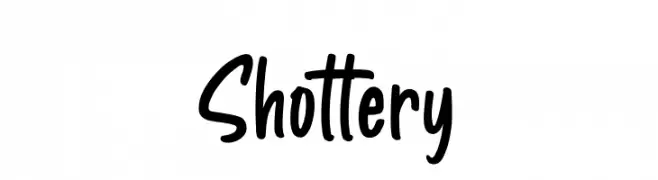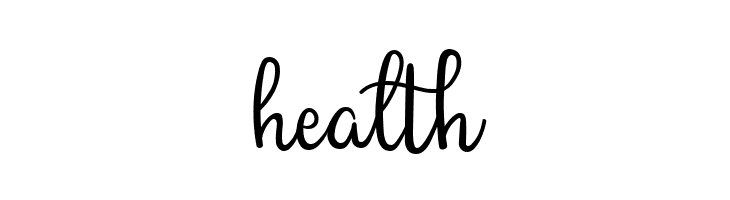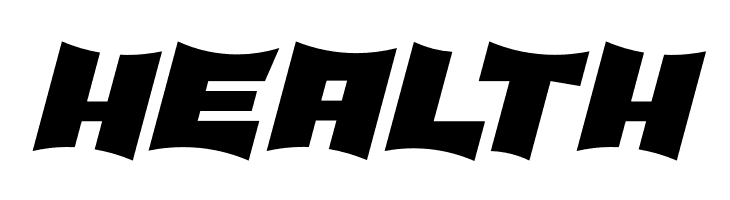
A bold, angular font with a futuristic and dynamic style.
A playful and elegant script font with flowing cursive letterforms.
A bold, elegant script font with fluid, cursive letters.
An elegant script font with fluid, cursive strokes and sophisticated style.
An elegant, cursive script font with flowing, dynamic characters.
A bold, dynamic script font with flowing, cursive letterforms and decorative flourishes.
A playful, hand-drawn font with a whimsical and dynamic style.
A bold, brush-style script font with dynamic strokes and a lively appearance.
A fluid and elegant script font with smooth, flowing lines and a slight slant.
A playful, casual handwritten font with smooth, flowing lines.